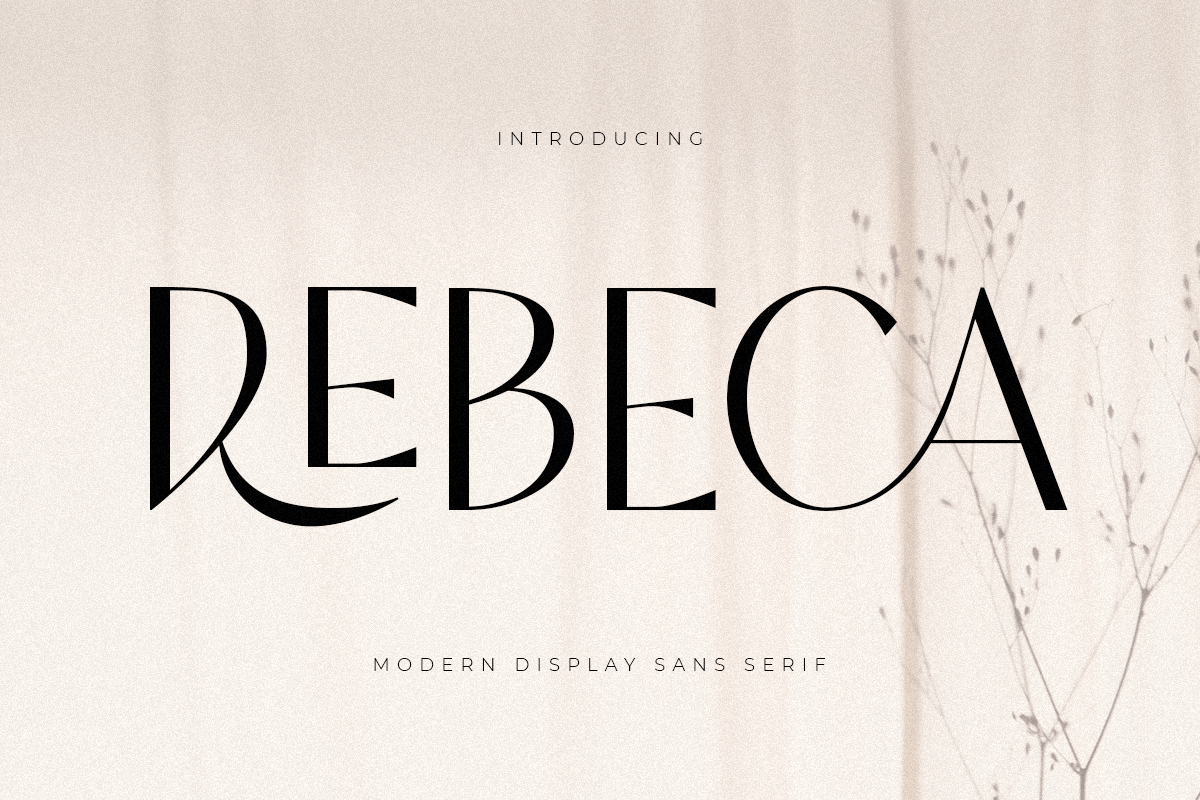
Rebeca
A Sans serif that we created special for elegant branding needs, with extra ligature and alternates in unique shape will be ready to add value of your brand. It so nice to leverage designer or product owner that need solutions to make their design look more classy and modern. And specially for this font, We prepared any ligatures characters to help you create unlimited variations for your creative needs.
Any options to get creative variations (combination of Alternate and Ligatures)